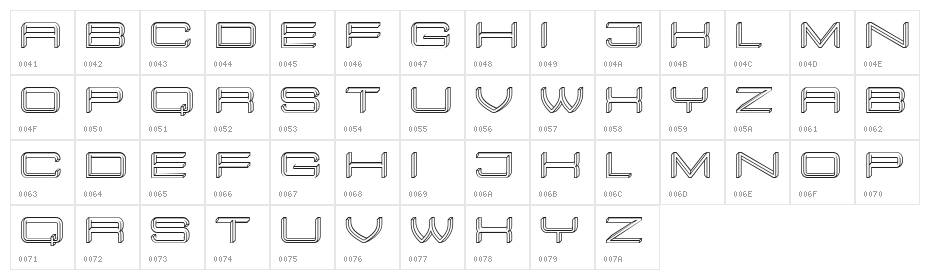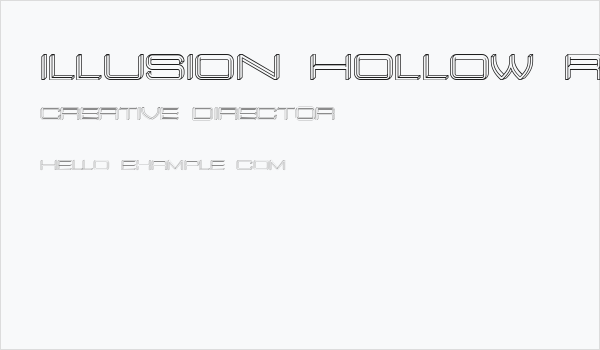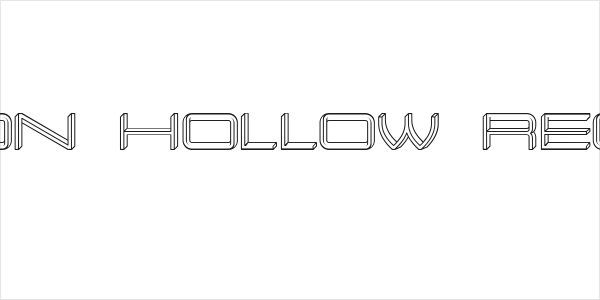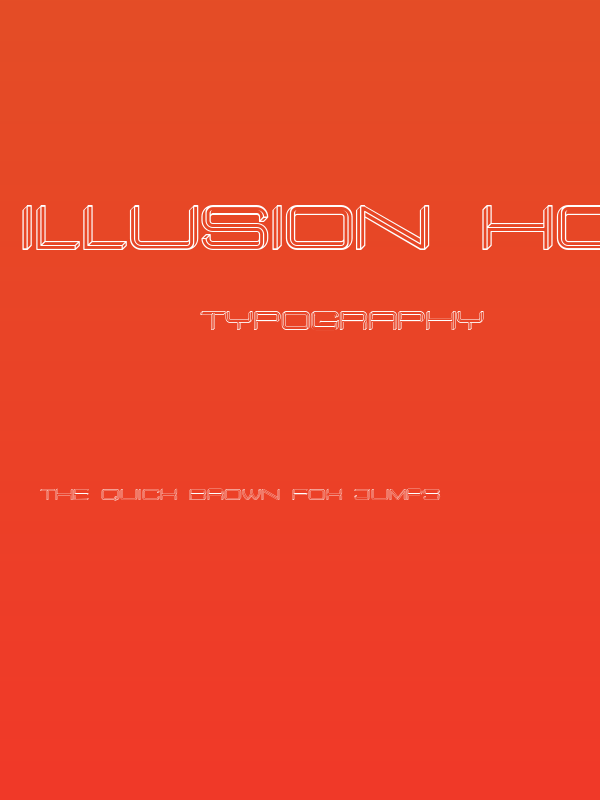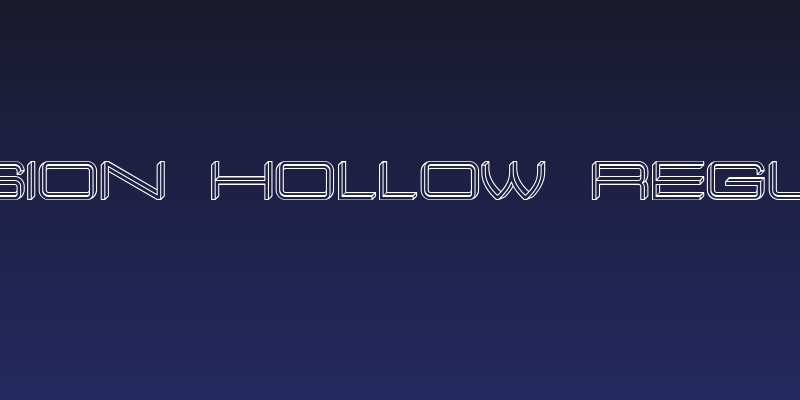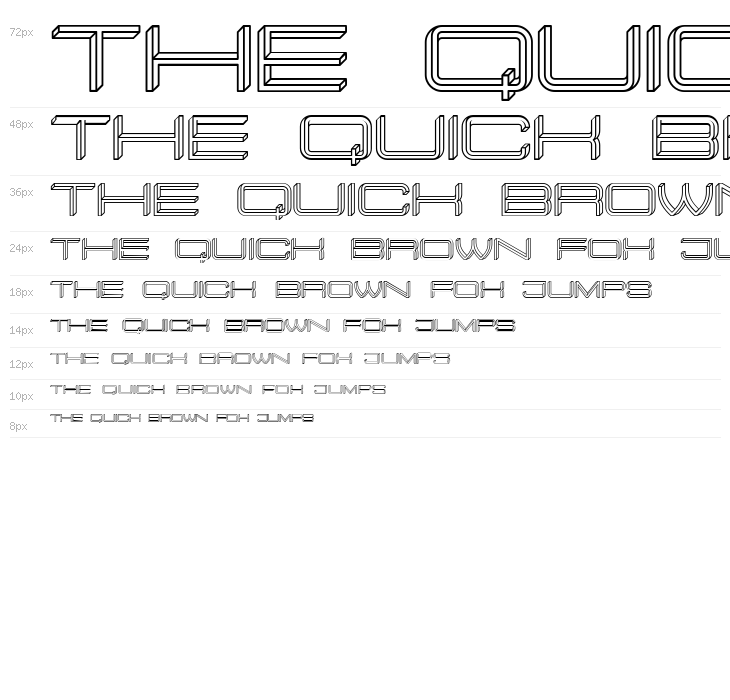
Illusion Hollow Regular Font
Illusion Hollow Regular Description
This font features a unique hollow design with a futuristic and geometric style. Each character is outlined with a double line, creating an illusion of depth and dimension. The letters are uniformly structured with sharp angles and clean lines, giving it a modern and technical appearance. The spacing between characters is consistent, providing a balanced and organized look. This font is ideal for projects that require a contemporary and innovative touch, such as technology branding, digital art, or sci-fi themed designs.
| Proposed Projects | Ideal for technology branding, digital art, sci-fi themed designs, and modern advertising. |